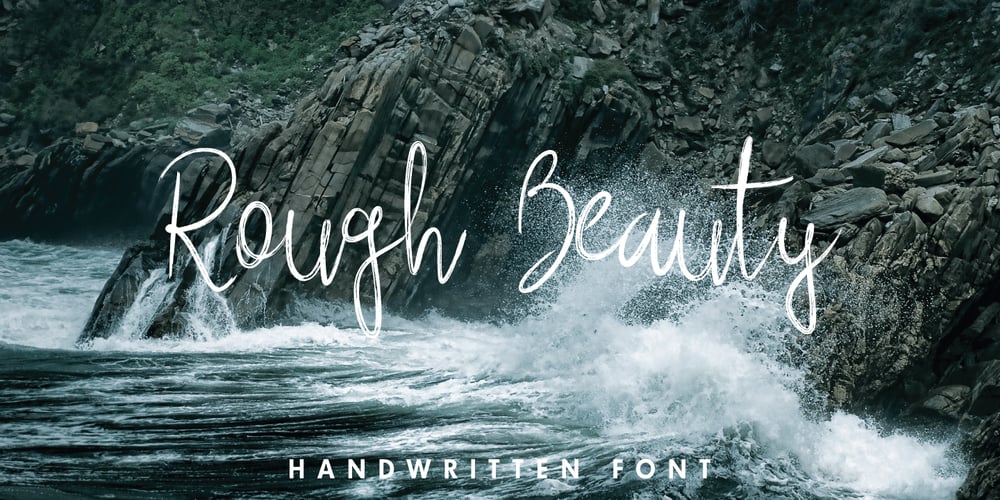
Rough Beauty Script
Rough Beauty Script font
Rough Beauty Script Font Family was designed by Pedro Teixeira and published by Pedro Teixeira. Rough Beauty Script contains 1 styles and family package options. Rough Beauty Script, with its alternate lowercase letters, gives a personalized feeling to your work. The textured appearance gives a nice impression on beautiful pictures as backgrounds, or in contrast, with really flat backgrounds.